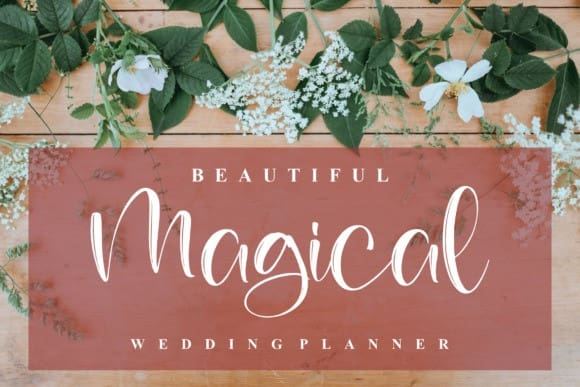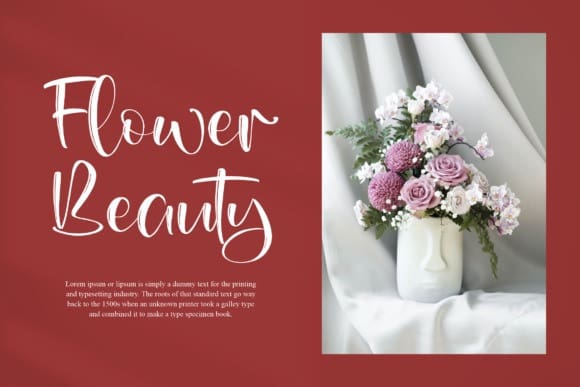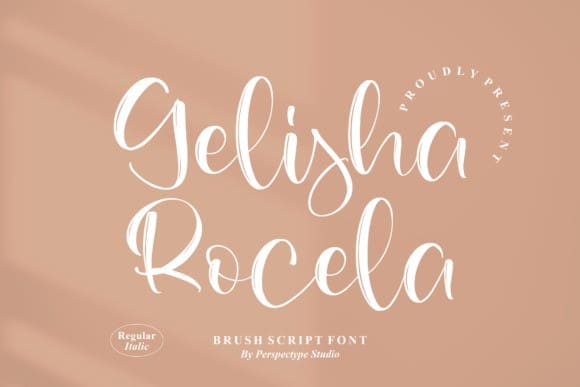
Gelisha Rocela Font
Gelisha Rocela Font is a stylish and dainty script font. It is suitable for any projects such as: logos, branding projects, label, photography, watermark, special events, and all your other lovely projects that need a beautiful script taste.